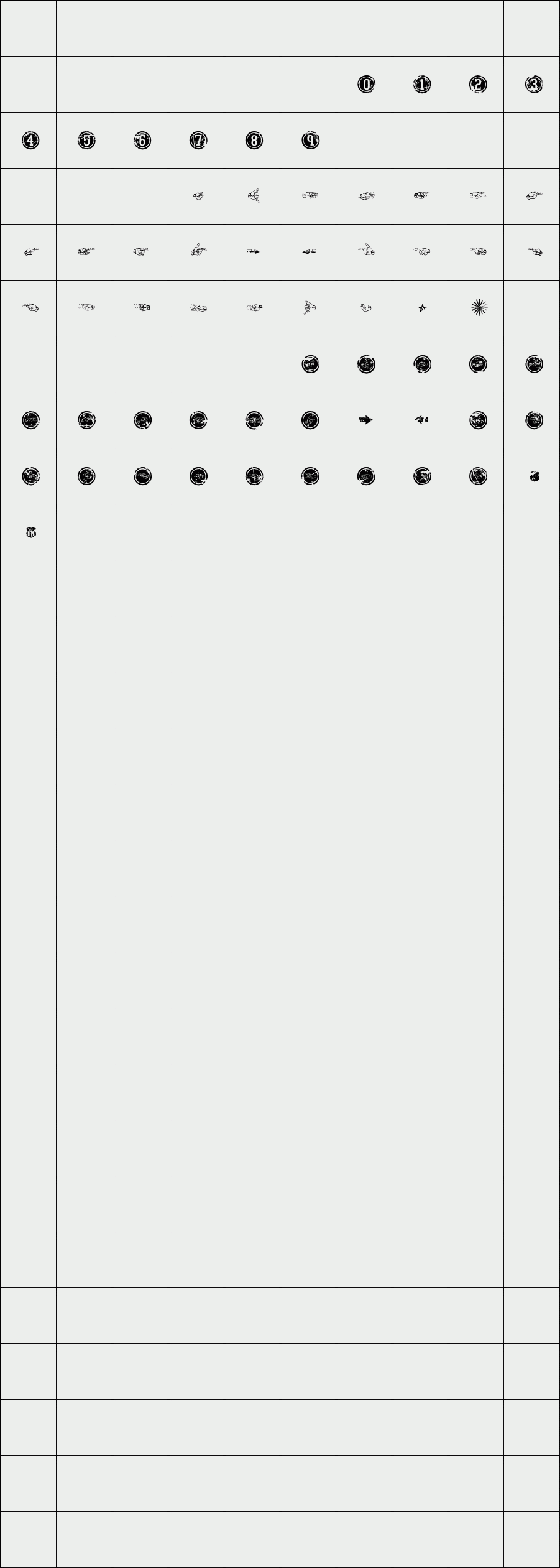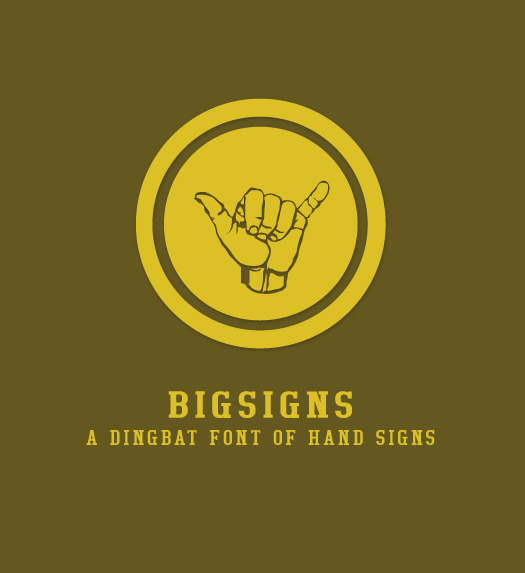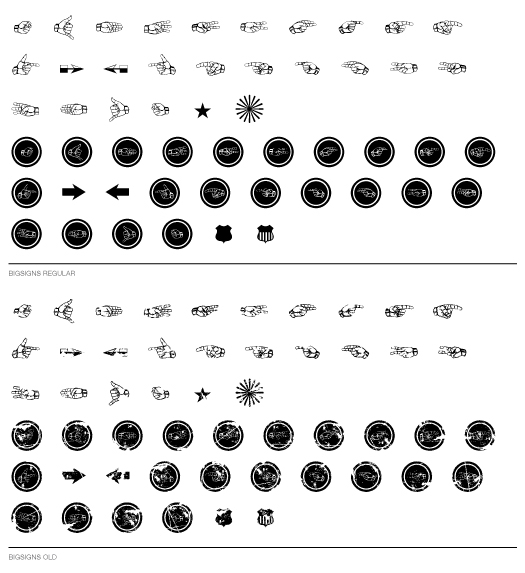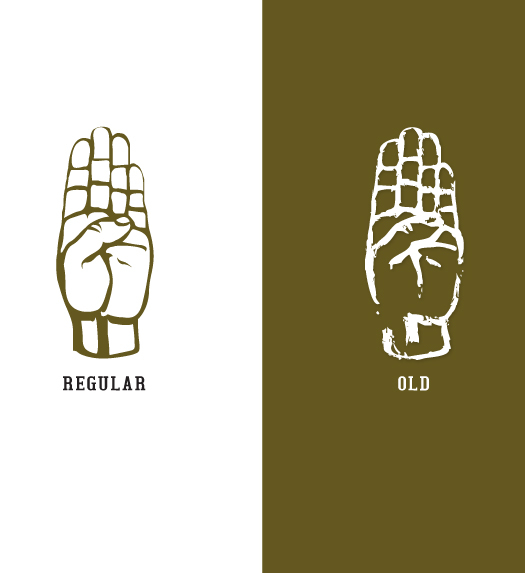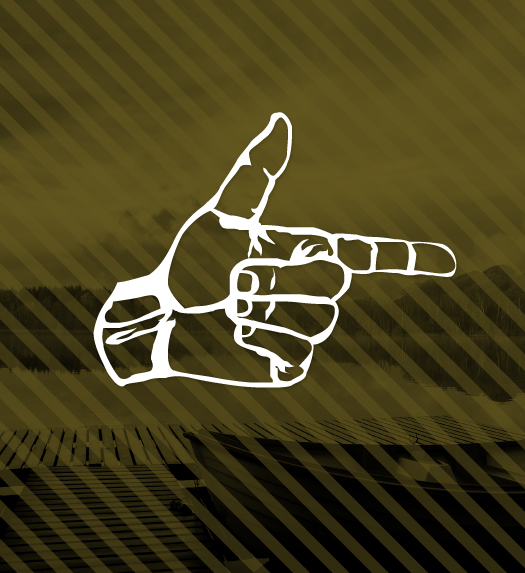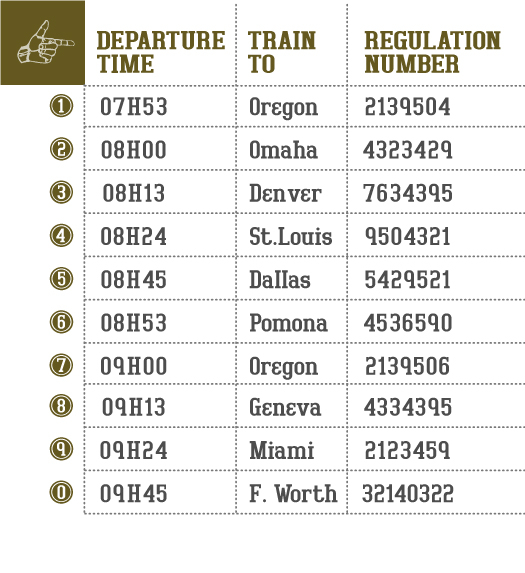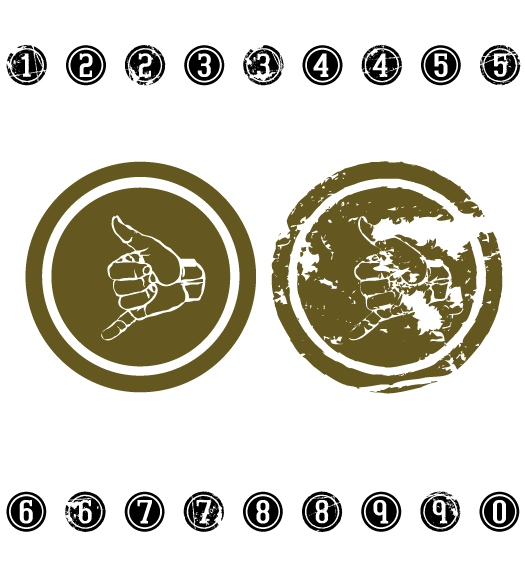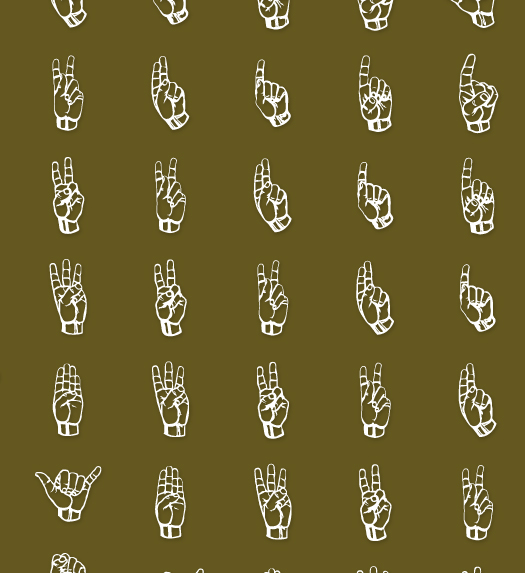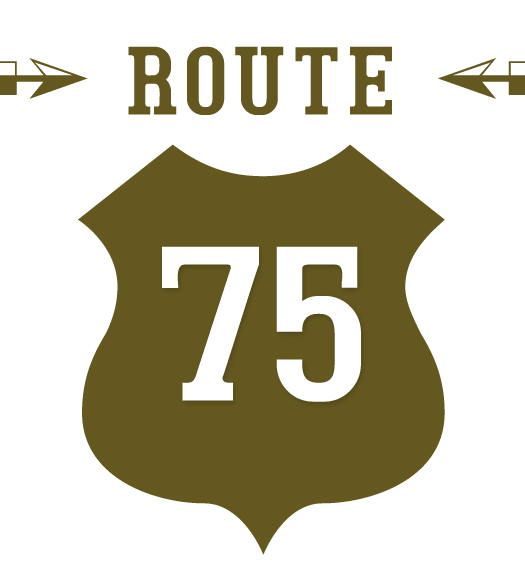
Bigsigns
/ Bigsigns old
Bigsigns is a dingbat font that was initially conceived as a compagnion font to BigBoy. Composed largely of hand signals, Bigsigns can be used as a stand alone font for decorative purposes or as a fleuron addition to any layout.